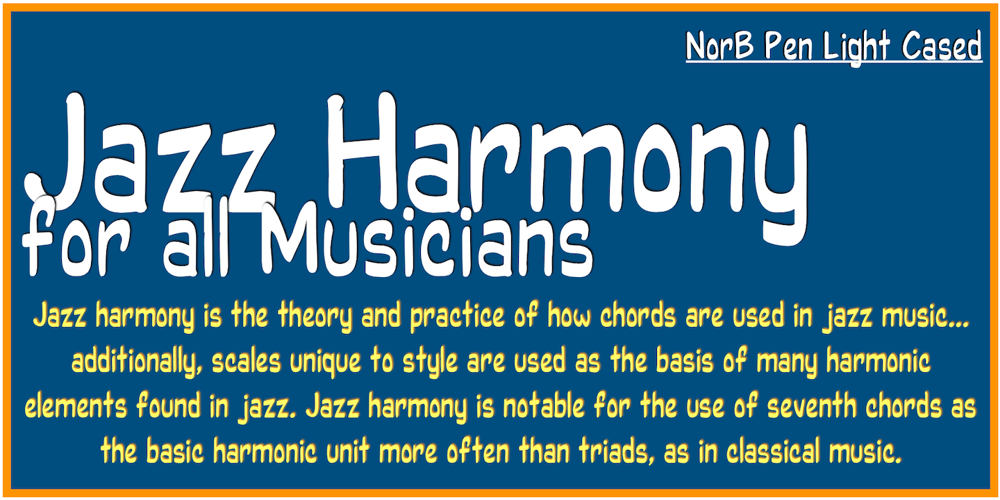
NorB Pen Cased Font Family was designed by Nor Eddine Bahha and published by NorFonts. NorB Pen Cased contains 8 styles and family package options. This is the Cased version of my NorB Pen fonts are being inspired from Arial Round font, I use this font regularly in my jazz lead-sheets. It’s a handwritten text font emulating marker permanent pen. You can use this font with any word processing program for text and display use, print and web projects, apps and comic books, graphic identities, branding, editorial, advertising, scrapbooking, cards and invitations and any casual lettering purpose… or even just for fun! Pen cased font8 weights, each with their matching italics and in a Light, Normal, Bold and Heavy version.